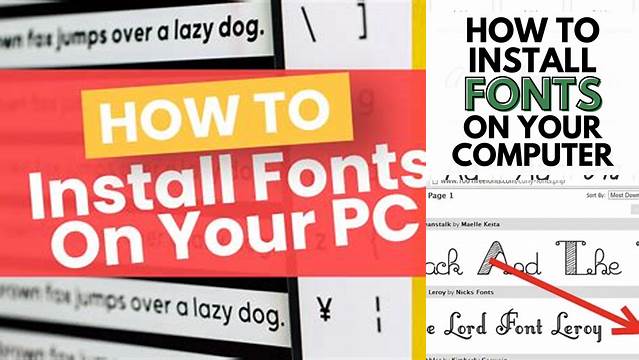
Downloading Fonts On Your PC: A Simple Guide
Hey guys! Ever wonder how to jazz up your documents, presentations, or even your social media posts with some cool fonts? It’s super easy, and I’m here to walk you through how to download fonts on your PC and get them ready to use. Whether you’re a creative pro or just someone who loves a good-looking text, this guide has got you covered. We’ll explore where to find these awesome fonts, how to get them onto your computer, and how to make them work with your favorite programs. Let’s dive in and make your text game strong!
Where to Find Amazing Fonts for Your PC
Alright, let’s talk about where to find these typographic treasures. The internet is like a giant font bazaar, filled with both free and premium options. Here’s a breakdown of some top-notch sources to explore:
- Google Fonts: This is a fantastic starting point. Google Fonts offers a massive library of free, open-source fonts. You can browse by category, style, or even language. The fonts are designed to be web-friendly, so they typically work great on your PC too. Plus, it's all completely free, which is always a win!
- DaFont: DaFont is a super popular website known for its vast collection of fonts. You'll find everything from quirky and creative to classic and elegant styles. The site is well-organized, making it easy to find what you're looking for. Just remember to check the license for each font, as some are free for personal use only.
- Font Squirrel: If you're after high-quality, free fonts that are ready for commercial use, Font Squirrel is your go-to. They have a curated selection of fonts, ensuring good quality and licensing options. They also offer a handy tool called the Font Identifier if you're trying to identify a font you see somewhere.
- BeFonts: Behance is a platform primarily known for showcasing creative work, but it’s also a good source for discovering fonts. Many designers share their font creations, and you can often find freebies or links to purchase fonts from their portfolios. It's a great place to find unique and artistic fonts.
- Creative Market: For a more premium experience, Creative Market is your friend. They have a huge selection of fonts available for purchase, offering a wide range of styles and licenses. The fonts tend to be high-quality and designed by professional font creators.
- MyFonts: MyFonts is another leading marketplace for fonts, boasting a huge collection of fonts from different foundries and designers. It’s a great place to find the perfect font for any project. You’ll find both free and paid fonts here.
Navigating Font Websites and Choosing the Right Fonts
So, you’re on a font website, staring at a sea of options – what do you do? Don’t worry, it’s not as overwhelming as it seems. Here's how to navigate and pick the perfect fonts:
- Consider Your Project: Think about what you’ll be using the font for. Is it for a website, a logo, a document, or something else? The purpose will guide your choices. A playful font might work for a children's book, while a professional sans-serif font would be better for a corporate presentation.
- Browse by Category: Most sites categorize fonts. Explore categories like serif, sans-serif, script, display, and monospace. This helps narrow down your options. Serif fonts have small strokes at the end of letters, which can give a classic feel. Sans-serif fonts don’t have these strokes and look more modern. Script fonts mimic handwriting, and display fonts are designed for headlines and titles.
- Read Font Descriptions: Take a moment to read the font descriptions. This will give you an idea of the font’s intended use and what kind of project it suits best. Some designers also share their inspiration for the font, which can be helpful.
- Preview the Font: Most sites let you type in custom text to preview the font. Use this feature to see how your words look in the font. Experiment with different sizes and styles (bold, italic) to see how the font performs.
- Check for Font Families: A font family includes different weights and styles of a font (e.g., regular, bold, italic, light). Having a full font family gives you more flexibility when designing.
- Look at Special Characters: Does the font support the characters you need? If you're writing in a different language, make sure the font includes the necessary diacritics or special characters.
- Read Reviews: See what other users say about the font. Reviews can help you understand the font's quality and ease of use.
- Don't Overuse Fonts: While it’s fun to have a variety of fonts, too many can make your design look cluttered. Stick to a maximum of two or three fonts for a consistent look.
Free vs. Premium Fonts: What's the Difference?
- Download the File: Click the button to download the font file. It’s usually in a ZIP or TTF (TrueType Font) or OTF (OpenType Font) format.
- Save the File: Save the file to a folder where you can easily find it later, like your “Downloads” folder.
Step 2: Extracting the Font Files (If Necessary)
- Locate the Downloaded File: Go to the folder where you saved the font file (usually your “Downloads” folder).
- Right-Click the File: Right-click on the ZIP file.
- Extract the Files: Choose